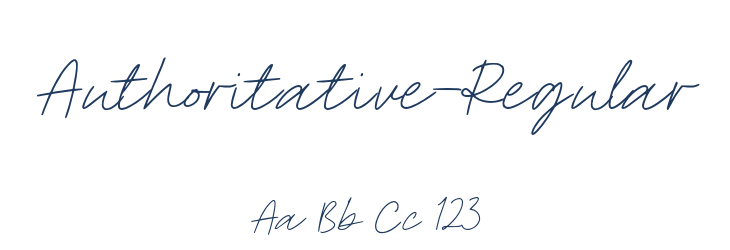
Loverine Font
A playful, handwritten cursive font with smooth, flowing curves.
Luxor Font
A lively handwritten font with fluid, natural strokes and a playful aesthetic.
Venhille Quaver Font
A dynamic and elegant script font with flowing, cursive letterforms and decorative flourishes.
Fooland Font
A playful, handwritten font with a whimsical, cursive style.
Callephane Font
A playful, handwritten script font with smooth, rounded strokes.
Plavea - Solid Font
A playful, bold handwritten font with smooth, rounded edges.
Bumbbled Font
A bold, cursive script font with a lively and connected style.
Haigl Rapture Font
A bold, expressive script font with fluid, dynamic strokes.
LaTahzan Font
A playful, casual handwritten font with fluid strokes and a dynamic appearance.
Jeefield Font
A lively, handwritten font with fluid strokes and a casual flair.
Authoritative-Regular Font
Loose, handwritten script with a natural, informal feel.
BallpointSignature Font
A fluid, handwritten-style font with a personal touch.
Gathenbury Typeface Font
A flowing cursive typeface with elegant loops and swashes.
Felmay Script Font
A flowing, elegant cursive font with interconnected letters and a modern touch.
Dreame Patter Script Font
A playful, casual script font with smooth, flowing lines and a handwritten style.
Palmeyra Font
A casual, handwritten font with a playful and dynamic style.
Montreuil Signature Font Font
A modern, elegant handwritten font with fluid strokes and a sophisticated feel.
Athena Signature Font
A fluid, cursive handwritten font with elegant, interconnected characters.
Selldon Font
A lively and elegant script font with smooth, flowing letterforms.